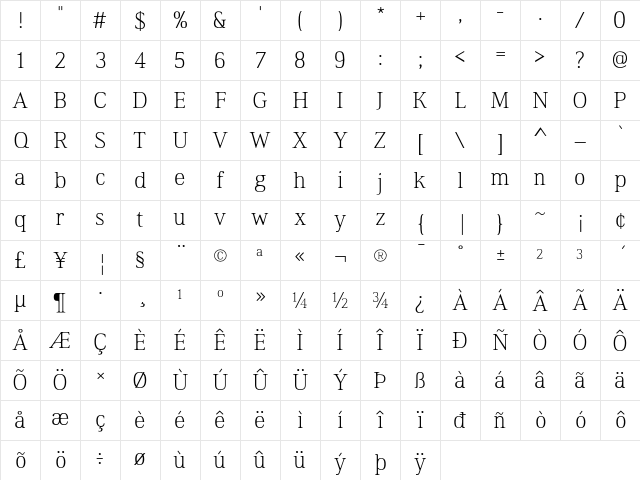
Ethos Thin Free Font
Ethos Thin
Style: Thin
Foundry: FONTS WITH LOVE
Designer: Florian Klauer
Design Context for Ethos
Ethos is a composed and adaptable typeface that performs quietly and consistently across a wide range of design contexts. Its slender proportions lend an understated elegance to any composition.